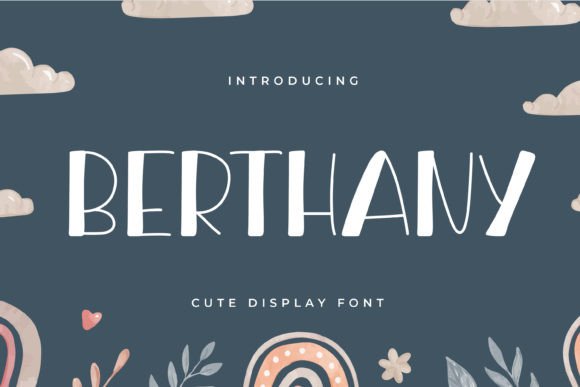
Immerse yourself in the world of Berthany Font, a captivating display font that will transform your designs into vibrant masterpieces. This playful and authentic font, crafted by the talented Role Type, is the perfect companion for any children's activity or school project.
With its chunky and colorful letters, Berthany Font breathes life into your creations, adding a touch of whimsy and joy. Its bold personality shines through, making it an ideal choice for eye-catching headlines, playful branding, and invitations that demand attention.
Picture this: a delightful children's storybook brought to life with Berthany Font, its cheerful characters leaping off the page. Or, imagine a vibrant school project that pops with personality, thanks to the playful charm of this remarkable font.
Berthany Font is not just a font; it's an experience. It evokes feelings of nostalgia, warmth, and childhood wonder. It's the perfect font to capture the innocence and magic of youth, making it an essential tool for any designer who wants to create designs that resonate with children and adults alike.